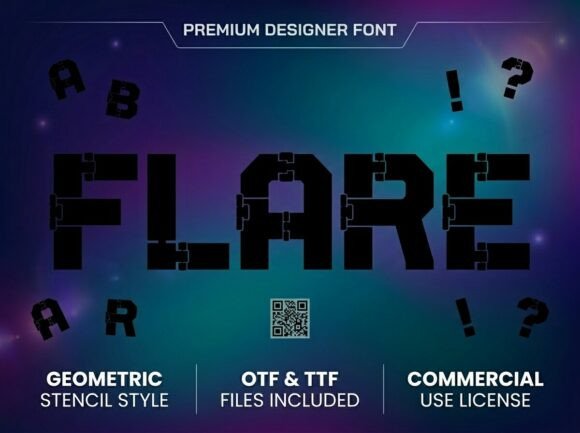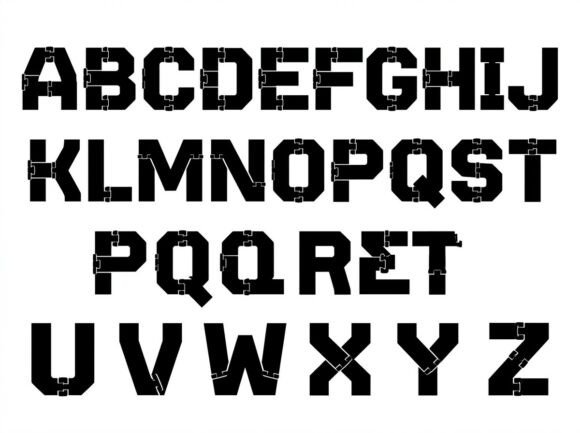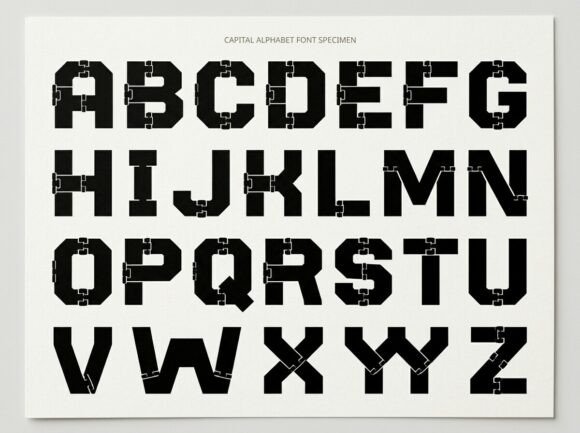
Introducing Flare Font: The Ultimate Decorative Display Font for Creators
Are you tired of using the same old fonts for your designs? Look no further! Flare Font is a stunning decorative display font that is sure to turn heads. With its unique artistic elements and strong visual personality, this font is perfect for creators who want to break away from the ordinary and make a statement.
What is Flare Font?
Flare Font is a versatile decorative display font designed to be the center of attention. Its unique artistic elements and strong visual personality make it perfect for bold headlines, artistic logos, and creative packaging. Whether you’re a designer, craftsperson, or DIY enthusiast, Flare Font is the perfect choice for anyone looking to add a touch of elegance and sophistication to their work.
Key Features of Flare Font
- Unique Artistic Elements: Flare Font features unique artistic elements that set it apart from other fonts. Its intricate details and ornate designs make it perfect for creating stunning visual effects.
- Strong Visual Personality: Flare Font has a strong visual personality that is sure to grab attention. Its bold and eye-catching design makes it perfect for headlines, logos, and other display text.
- Versatile: Flare Font is versatile enough for use in a variety of design projects, from bold headlines and artistic logos to creative packaging and more.
- Professional and Polished Finish: Despite its decorative nature, Flare Font maintains a professional and polished finish, making it perfect for use in high-end designs.
IMPORTANT NOTE BEFORE PURCHASE: Flare Font is an ALL-CAPS (Uppercase Only) display typeface. It does not include lowercase letters. It is specifically designed for high-impact headlines, logos, and decorative initials where every letter is a work of art.
Why Choose Flare Font?
So why choose Flare Font over other decorative display fonts? Here are just a few reasons:
- Unique Design: Flare Font features a unique design that is sure to turn heads. Its intricate details and ornate designs make it perfect for creating stunning visual effects.
- Perfect for Designers and Crafters: Flare Font is perfect for designers, craftspersons, and DIY enthusiasts who want to add a touch of elegance and sophistication to their work.
How to Use Flare Font
Using Flare Font is easy! Here are a few tips to get you started:
- Use for Headlines and Logos: Flare Font is perfect for use in headlines and logos where you want to make a bold statement.
- Experiment with Different Sizes: Don’t be afraid to experiment with different sizes and arrangements of Flare Font to create stunning visual effects.
- Pair with Other Fonts: Flare Font pairs well with other fonts, so feel free to get creative and experiment with different font combinations.
In conclusion, Flare Font is a stunning decorative display font that is sure to turn heads. With its unique artistic elements, strong visual personality, and versatility, it’s perfect for creators who want to break away from the ordinary and make a statement. Whether you’re a designer, craftsperson, or DIY enthusiast, Flare Font is the perfect choice for anyone looking to add a touch of elegance and sophistication to their work.